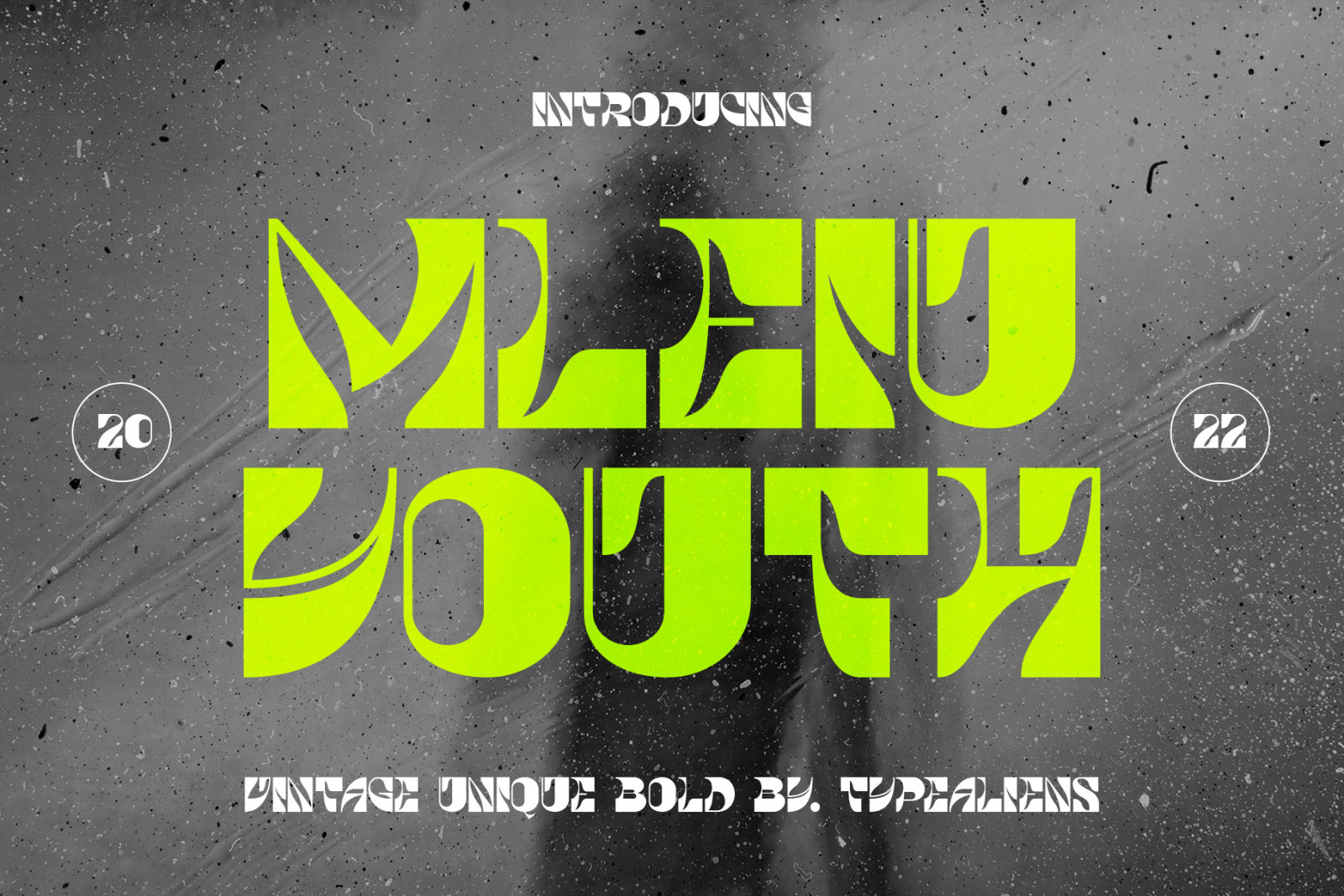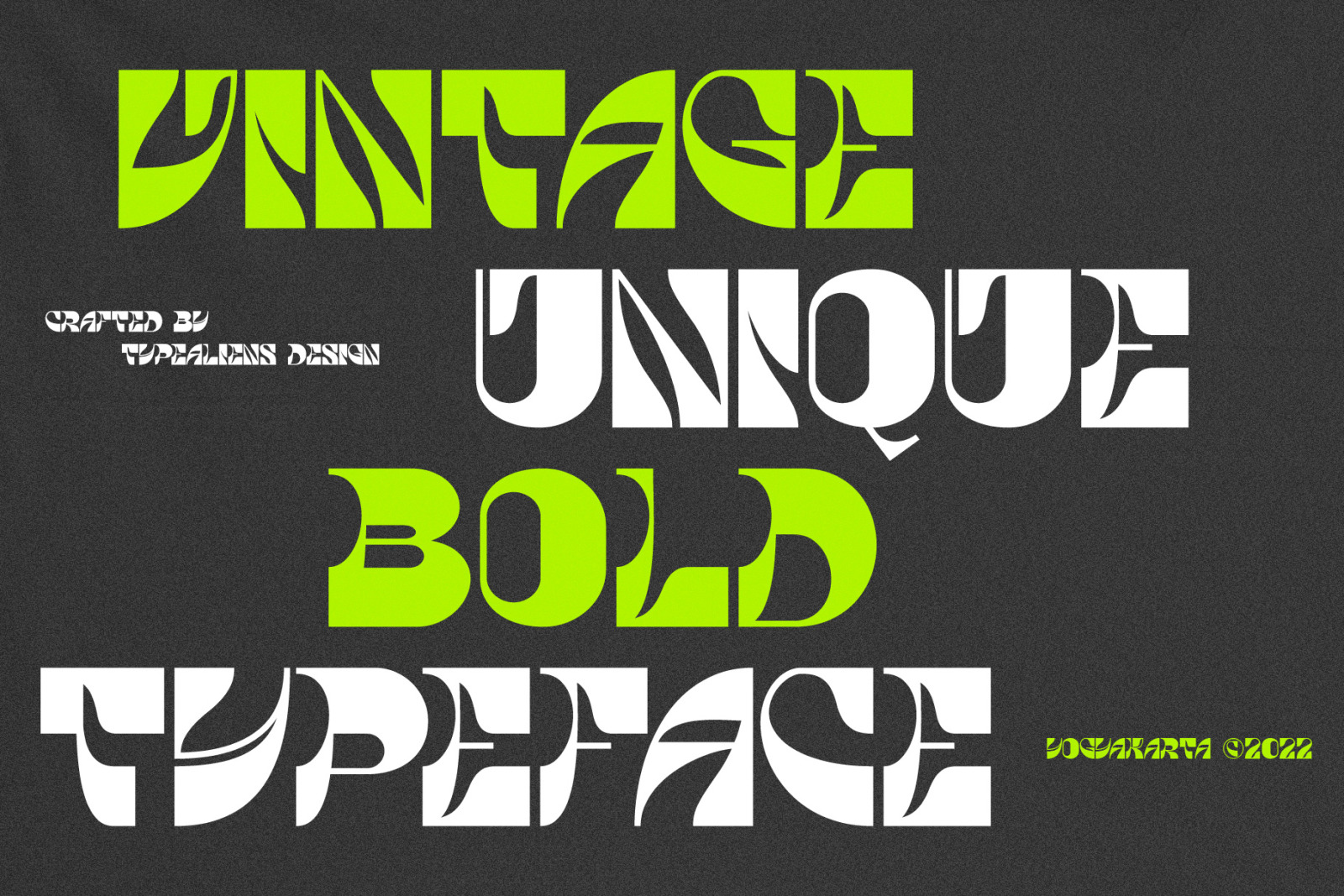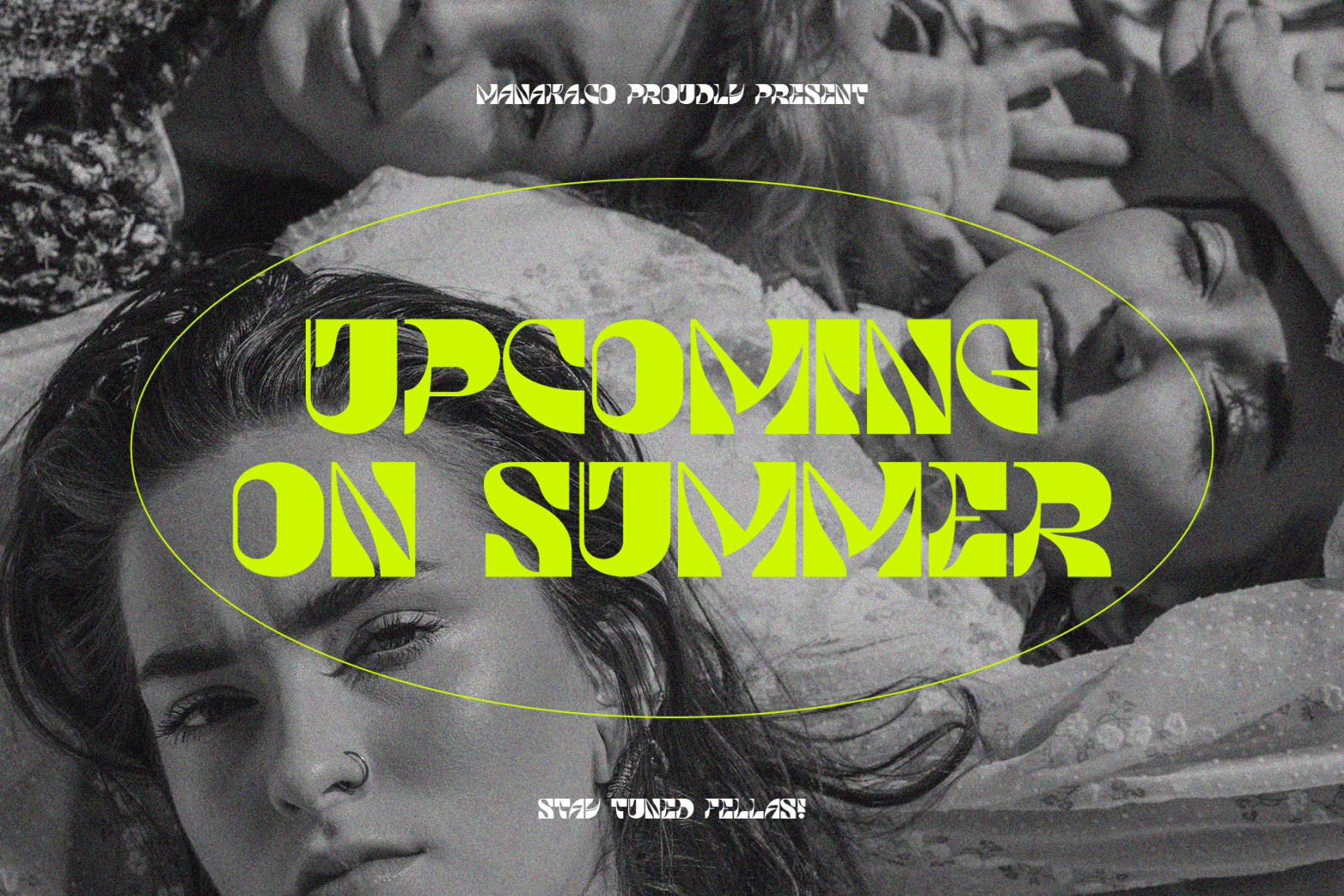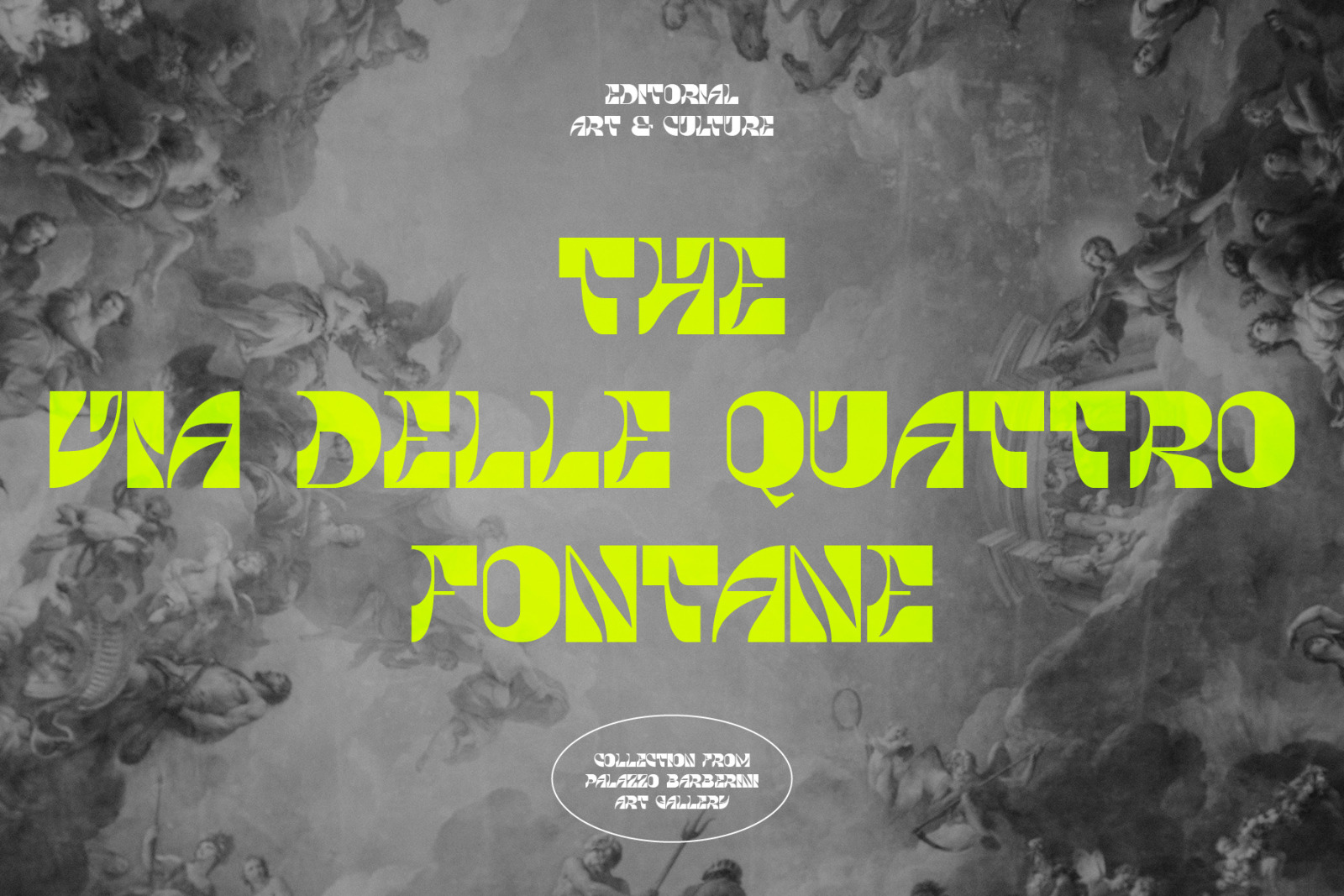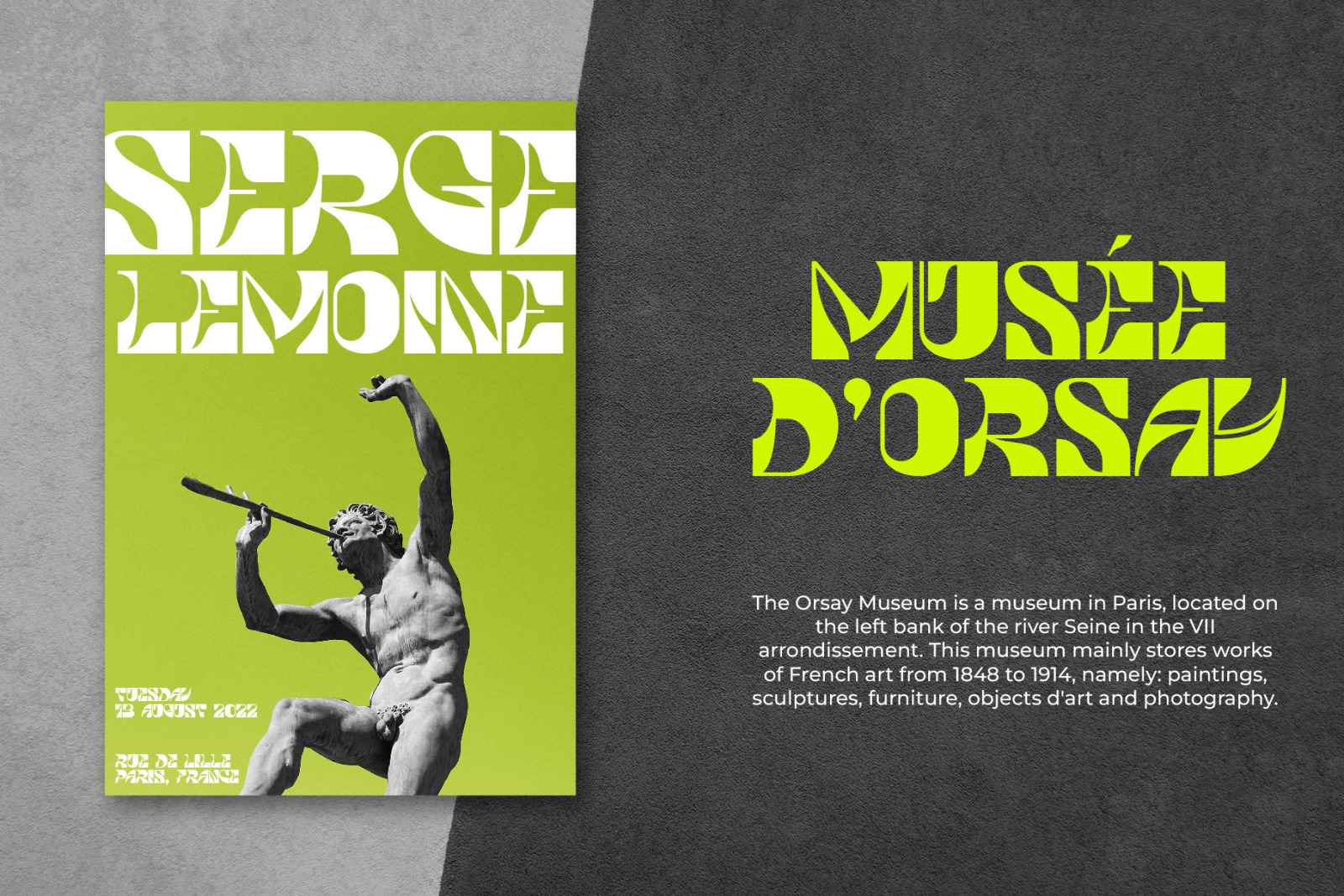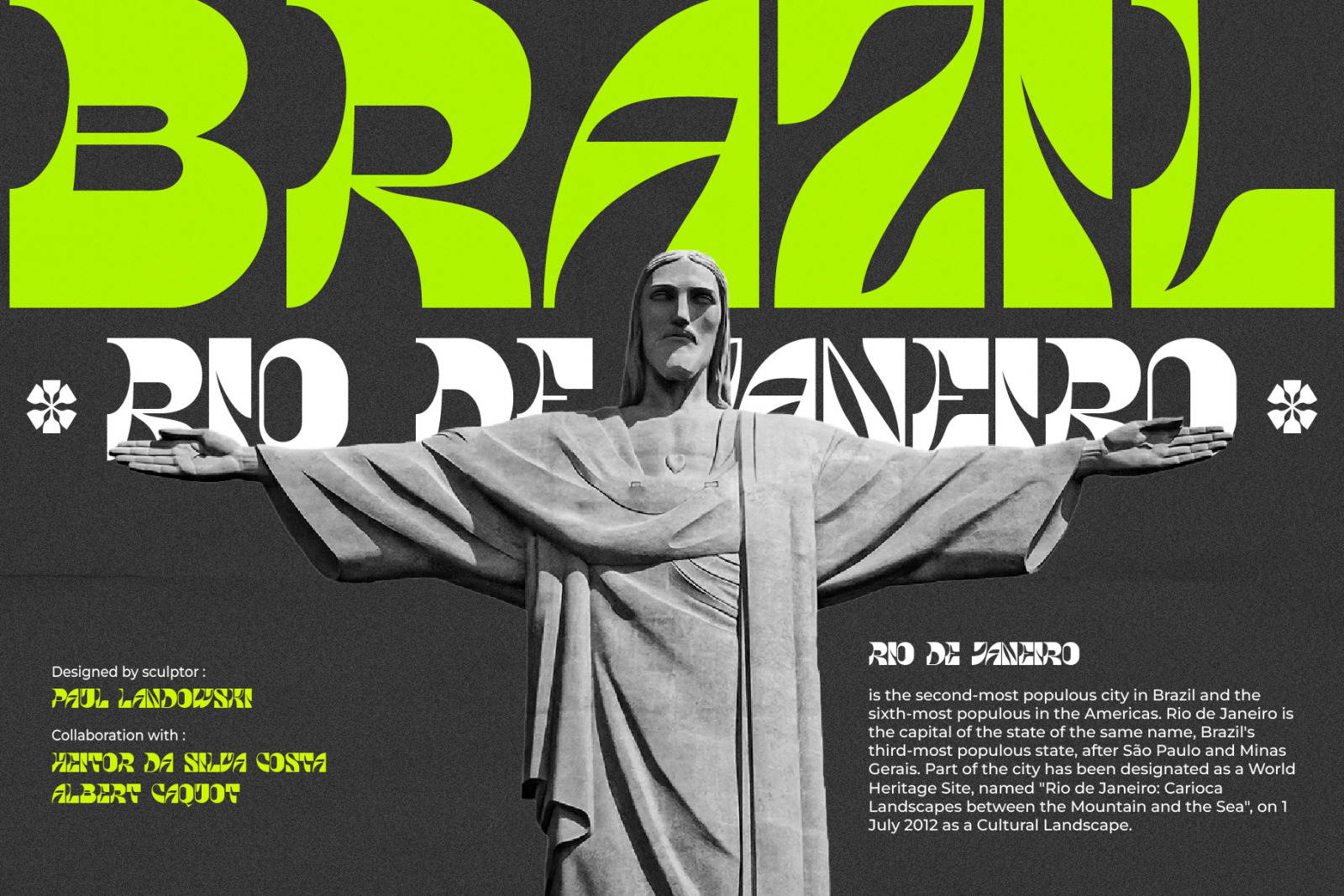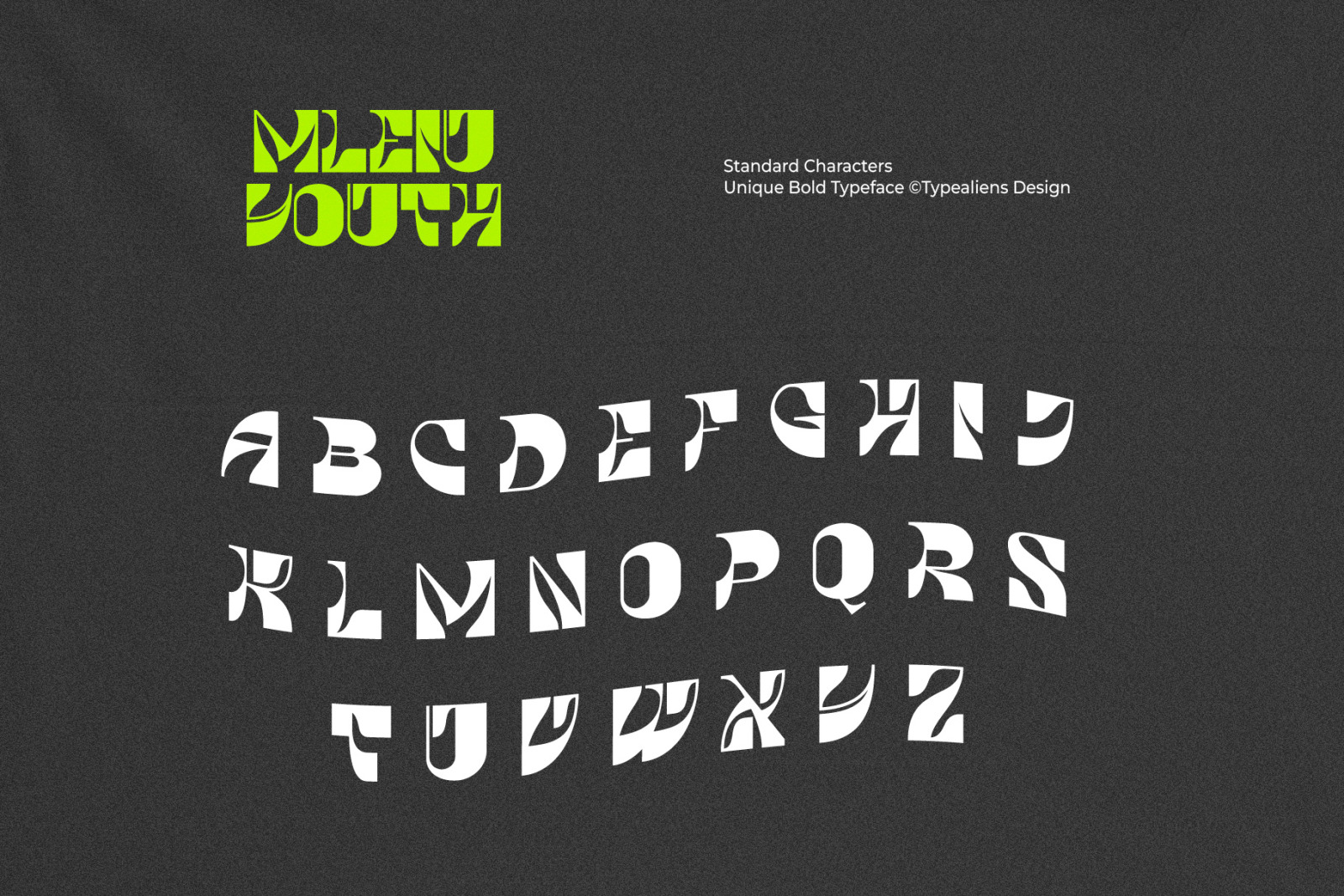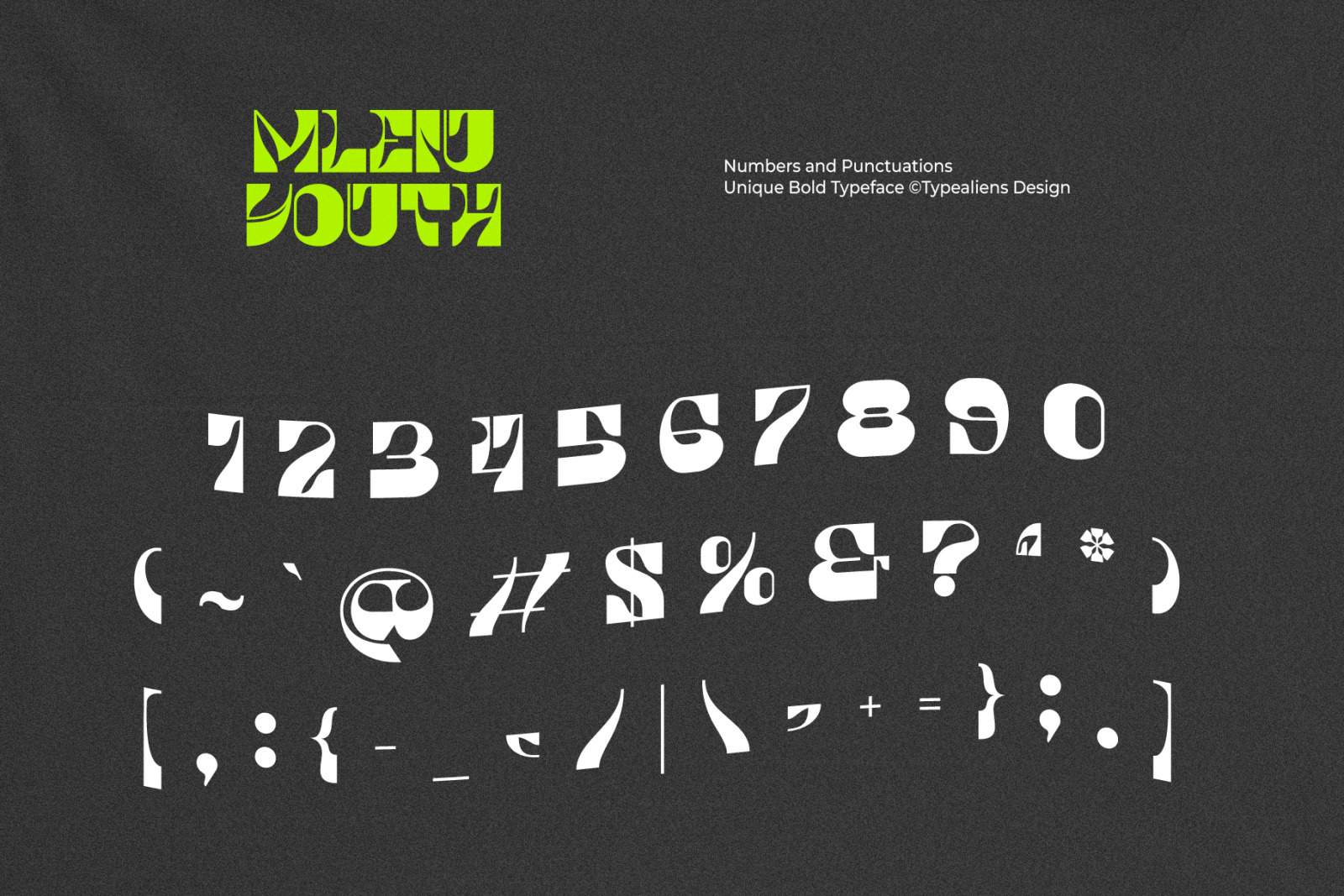
Mleiu Youth Font
MLEIU YOUTH is a display font whose base is a stiff serif bold blended with a psychedelic style. With the characteristics of a snaking stroke. This font can be used for modern or vintage designs and is also suitable for magazine headlines or music events and other events.
The uniqueness of this font is as if it is formed from a box with curved pieces according to the shape of the letter. It is very interesting to be explored into modern or vintage designs, such as poster media or other print media.